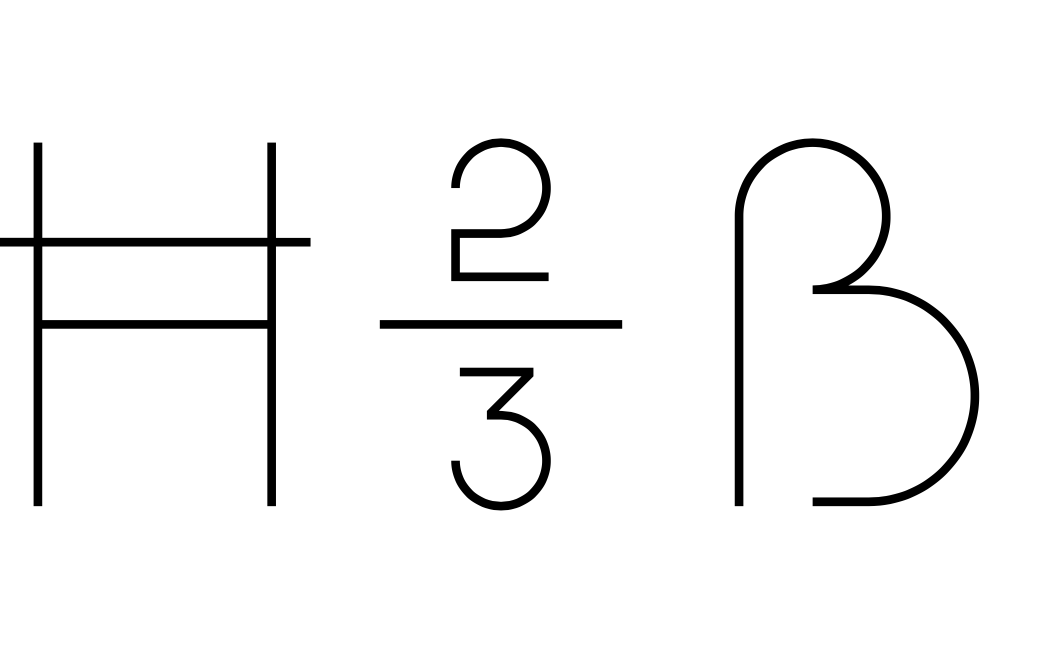
Backstory: Mark Gowing started working on Boulder Mono in early 2017. He was designing the Gemma Smith, Found Ground monograph for Formist Studio’s publishing imprint, and decided that the book “required a monospaced typeface to best reference Smith’s use of rhythm, grid and geometry.” After testing “pretty much” everything around, Gowing decided that the fonts available weren’t expressive enough. A custom font was needed.
“It occurred to me that the most appropriate way to design a typeface for an artist’s book might be as a kind of call and response method,” says Gowing. “Gemma Smith’s artwork would be the call, and the typeface would be the response. This means that the type doesn’t need to look like the artist’s work, but perhaps instead be a part of a conversation about the work.”
Why’s it called Boulder Mono? The typeface is named after Gemma Smith’s Boulder sculptures, which are made from facets of coloured acrylic. “Boulder Mono doesn’t look at all like the sculptures, but they provided key moments in call and response design practice, along with some of Smith’s more recent paintings that contain large voluminous forms,” says Gowing. “I was also drawn to the name ‘Boulder’ due to the connotations of raw, unrefined forms.”
What are its distinguishing characteristics? The glyphs, which are made with circle and square units that lend the typeface a gridded sense of rhythm. “The circle and square are combined by stacking the units or splicing unit parts together, and are accompanied by simplified strokes as required,” says Gowing. “The type is all a singular stroke weight, with no optical correction. I wanted the type to feel raw and have the qualities of a geometric drawing, rather than traditional typographic stresses. The italic was created by simply splitting and offsetting the glyphs at their natural connection points to create a horizontal splice effect.”
When typeset as text galleys Boulder Mono looks—at a quick glance—like a typical monospaced font. On closer inspection though, it reveals an idiosyncratic rhythm that isn’t difficult to read. When it’s enlarged, Boulder Mono takes on a more geometric presence that behaves more like a display typeface. The italic is particularly display-like at large sizes.
What should I use it for? Boulder Mono has not yet been used outside of Formist studio. There though, it’s been used to typeset the book for Gemma Smith as well as another book for artist Shigeru Ban. The Shigeru Ban project also involved a great deal of promotional materials, so Boulder Mono was used across a range of materials like posters, invitations, and animated internet advertising. It’s a rhythmic, jagged, and vivid font well-suited to projects where monospaced type is required, as well as something lively and idiosyncratic.
What other typefaces do you like to pair it with? A traditional serif font would counterbalance the jagged and raw forms—say Garamond, Domain Text, or even Times New Roman. Gowing also recommends pairing it with something “intentionally strange.” “Perhaps Mistral—that should get the blood pumping.”